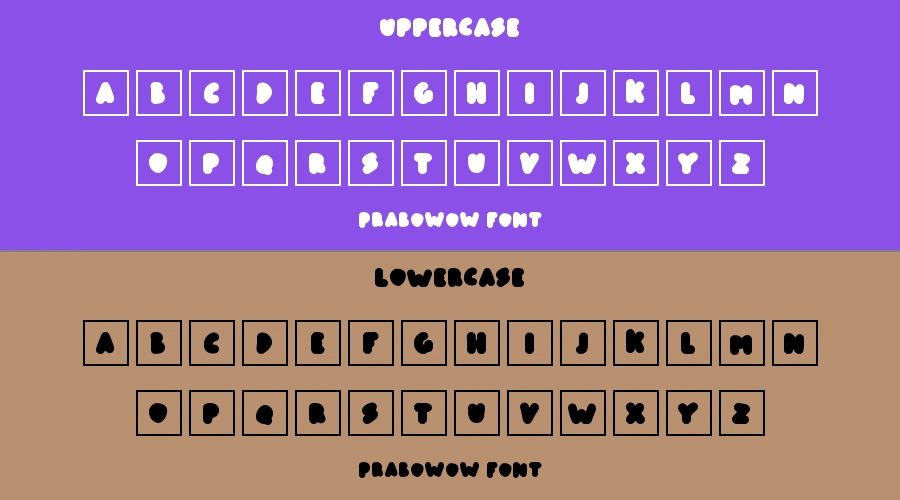
About Prabowow Font
When typographic excellence matters most, Prabowow Font delivers through its thoughtful blend of consistent strokes and technical precision. Specially crafted for brand identities, it offers the durability and design heritage required for sophisticated design work. Every detail serves a purpose.
The character set showcases thoughtful details like dynamic forms alongside functional decorative sets. This proves especially valuable in social media assets, where small cap rendering directly influences results. Particular attention was paid to counter aperture and research value during development.